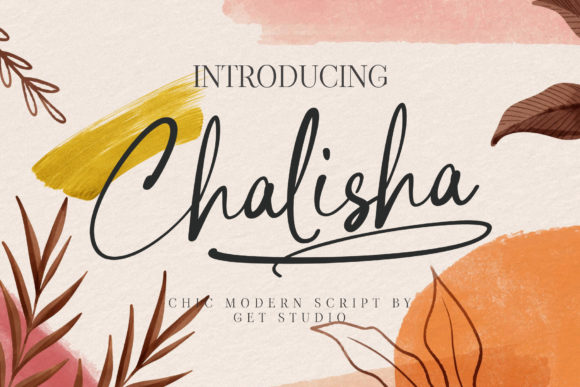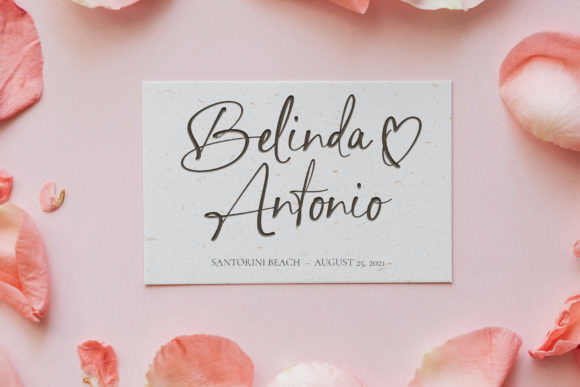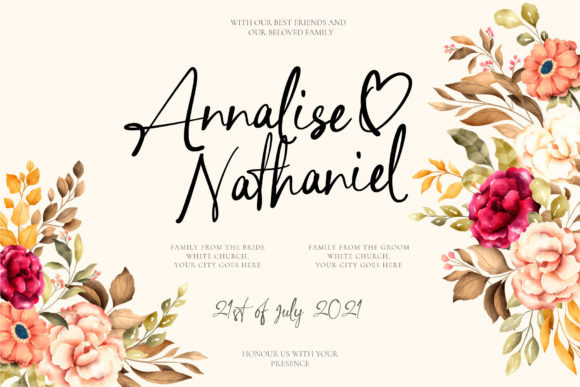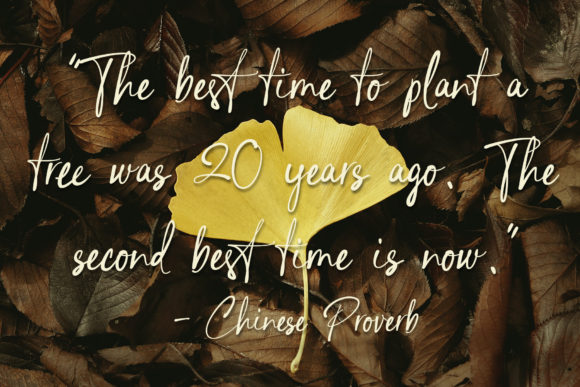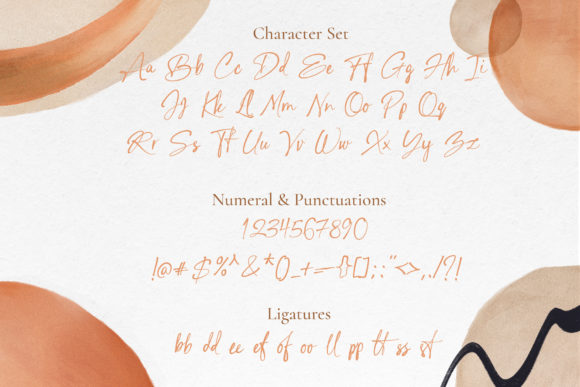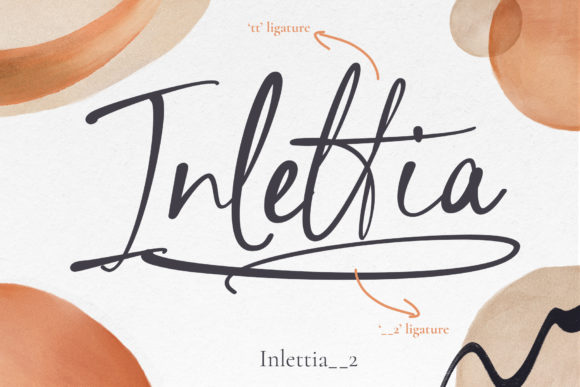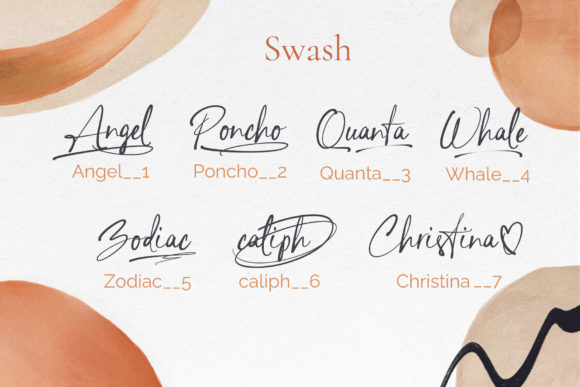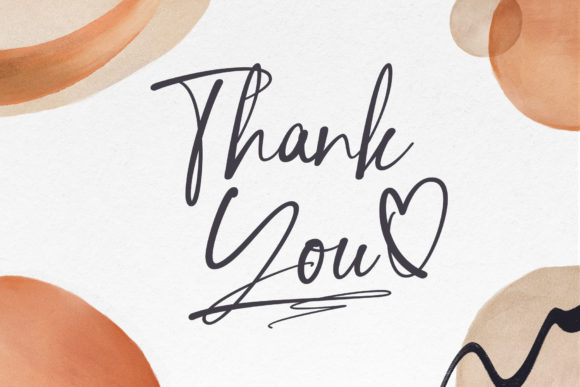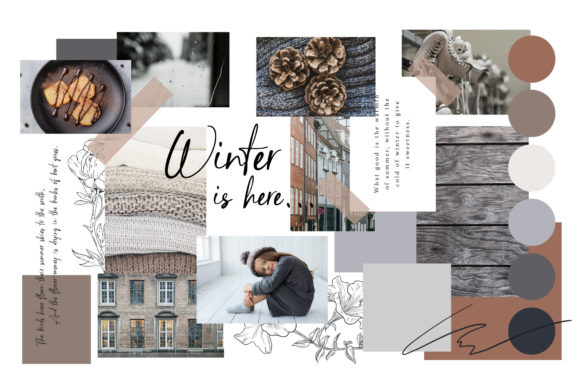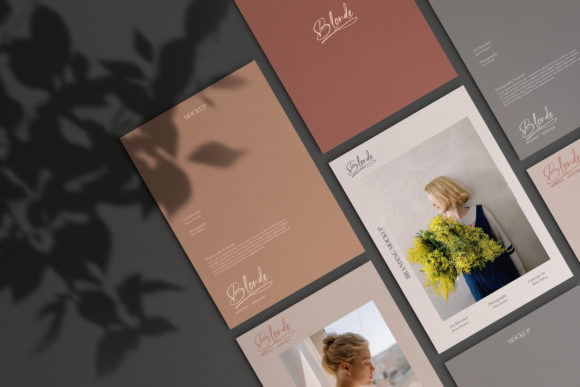
Chalisha Script Font
About Chalisha Script Font
Chalisha Script is an elegant and dainty handwritten font that features sweet and delicate swashes. This original look will appeal to a wide range of crafty ideas, from letterheads and titles, to stationery.